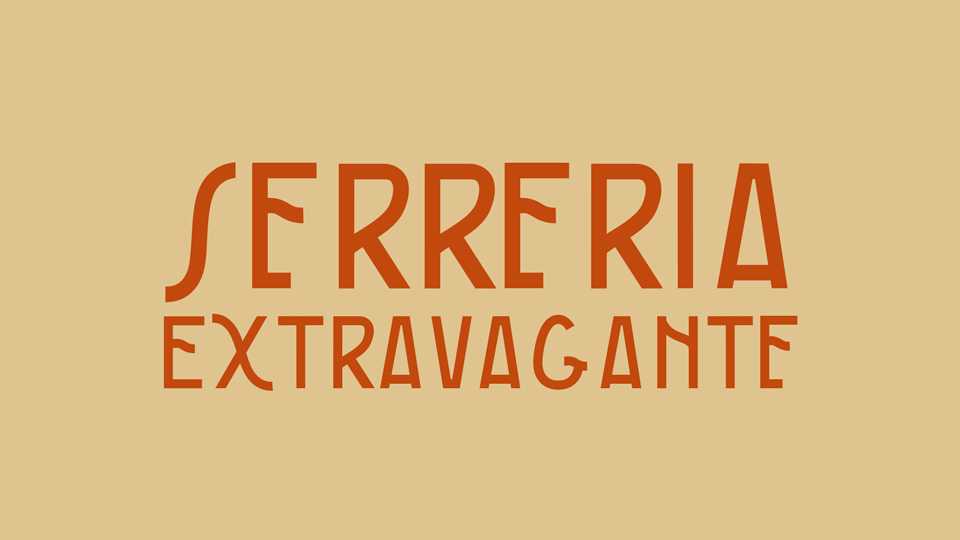
Download MFI Serreria Extravagante font, a fancy retro display typeface drawn from letterforms on an ancient sawmill in Madrid. MFI Serreria Extravagante font looks prefect for vintage designs, posters, headlines and other creative projects.
Designer: Manufactura Independente